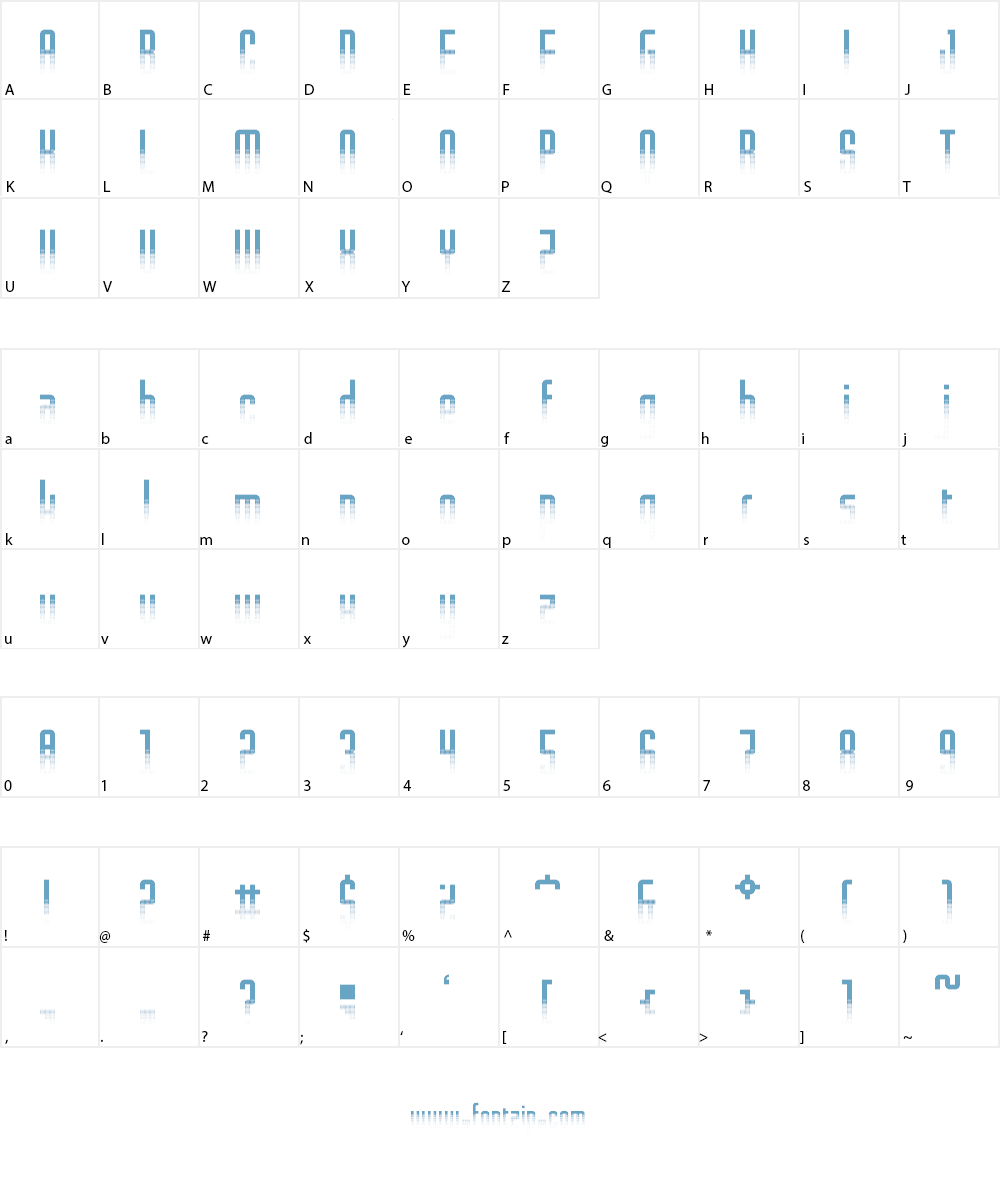
A half-faded sans-serif made to be condensed and good for speedreading. Supports English only for now, due to software issues which nearly broke the font. More languages (and likely more variations on this design) will be added once things are sorted out.